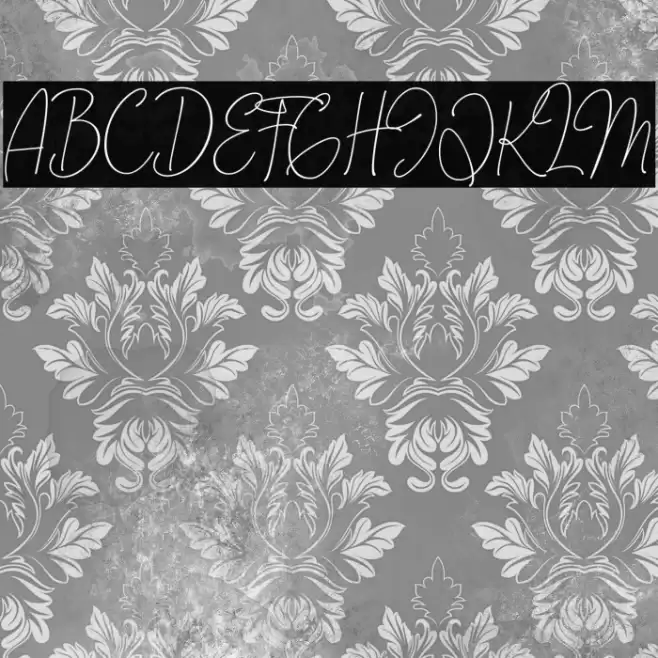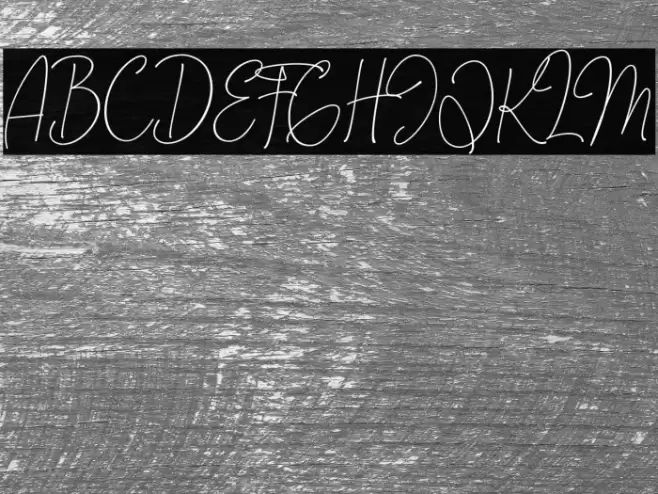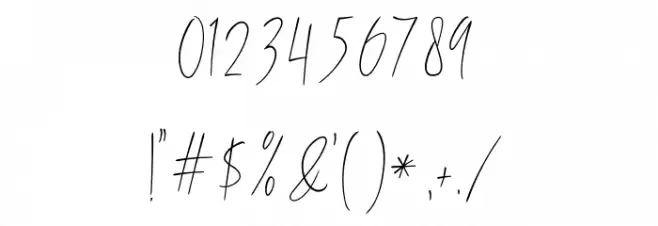
CREMISS Signature Regular Font
CREMISS Signature Regular Description
This elegant script font features a fluid, handwritten style with a modern twist. The characters are gracefully connected, creating a seamless flow that mimics natural handwriting. The uppercase letters are tall and slightly narrow, while the lowercase letters maintain a consistent height, adding to the font's readability. The numerals and special characters are designed to complement the overall aesthetic, maintaining the same fluidity and elegance. This font is perfect for projects that require a personal touch, such as invitations, greeting cards, and branding materials.
A modern, elegant script font with a fluid, handwritten style from Uncategorized fonts.
- Font: CREMISS Signature Regular
- Proposed Projects: Ideal for wedding invitations, personal branding, greeting cards, and elegant packaging.
- Use Case: Logos, Invitations, Personal Branding